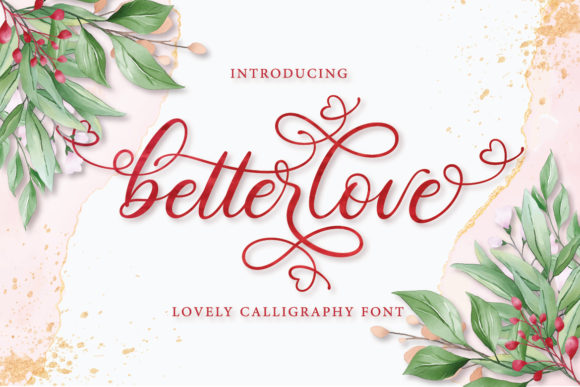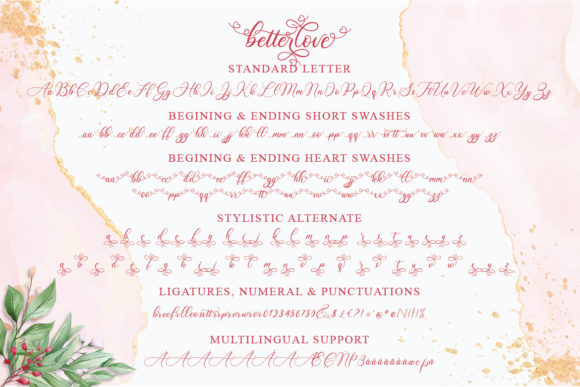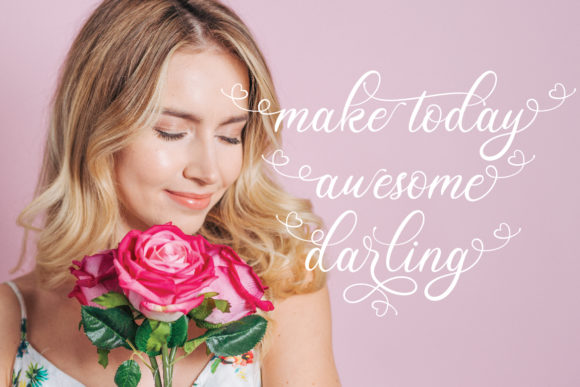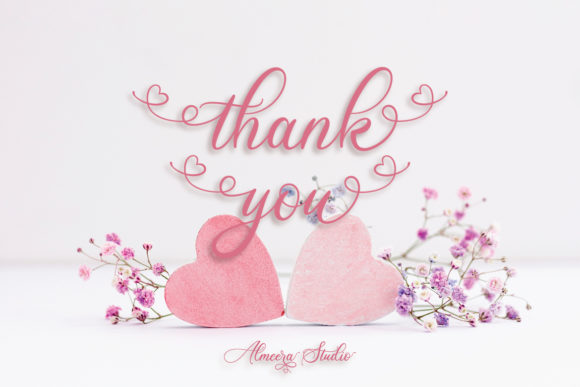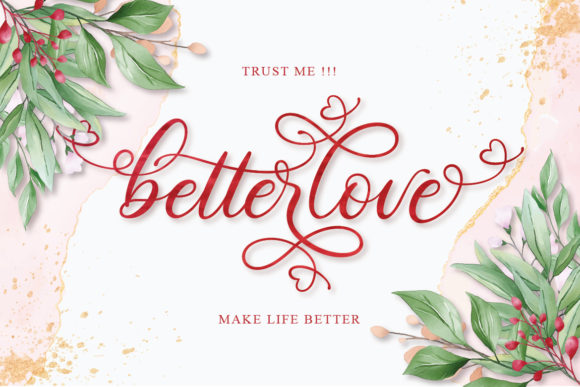
About Betterlove Font
Betterlove is a lovely calligraphy font with an incredibly luxurious feel. Its natural handwriting makes it suitable for logotype,Cricut, Silhouette, crafting, wedding invitations, Valentine’s Day designs, and much more!
This font is PUA encoded which means you can access all of the stunning glyphs and swashes with ease! It also features a wealth of special features including alternate glyphs and ligatures.